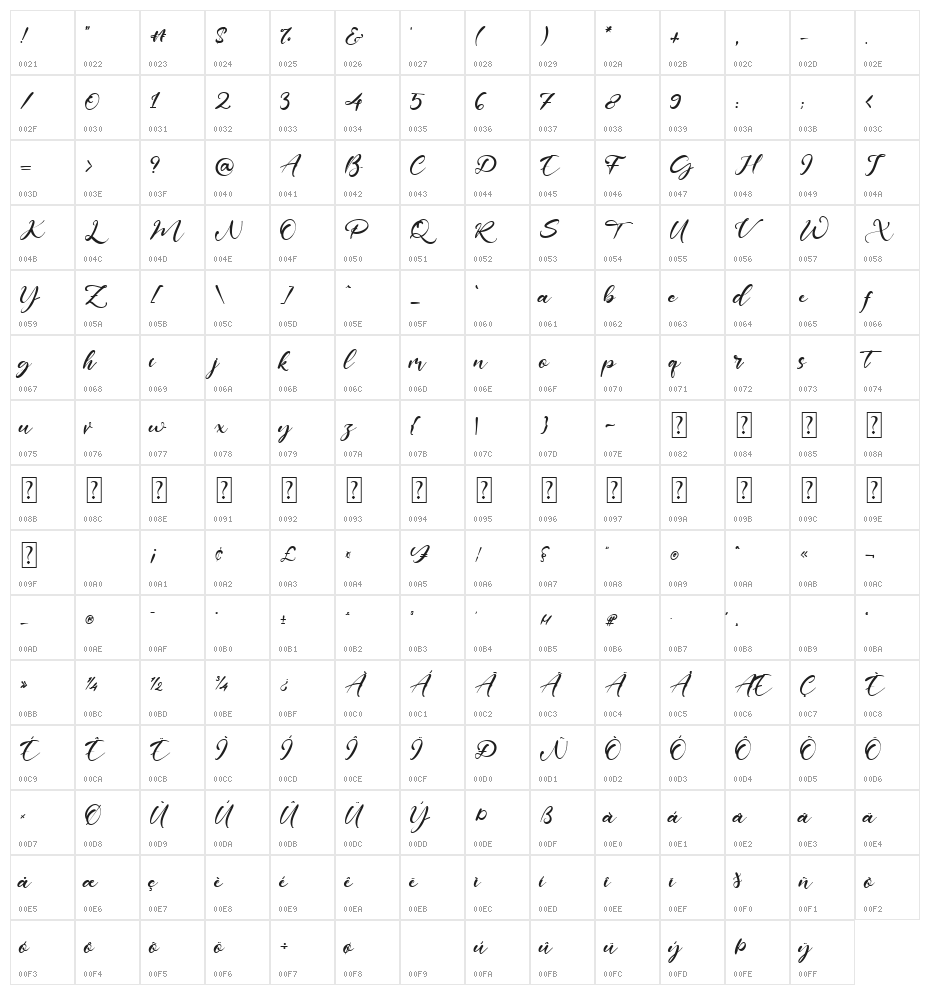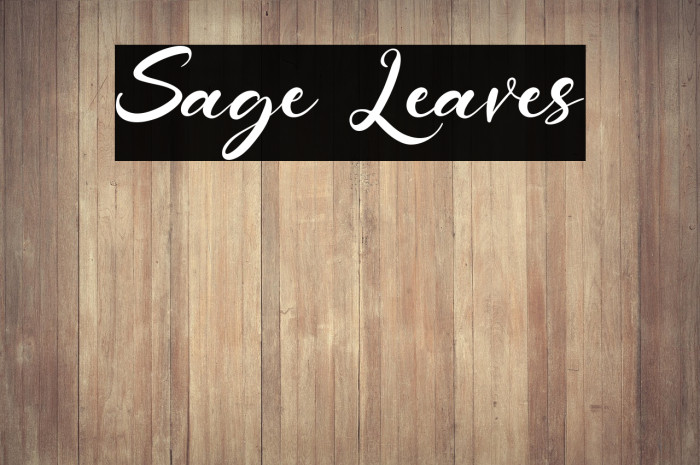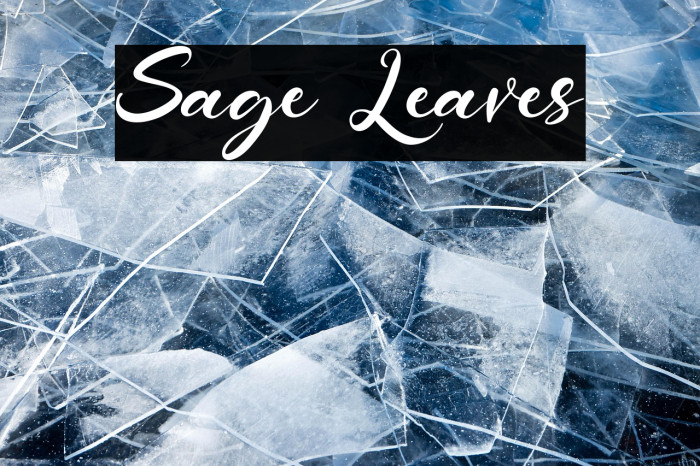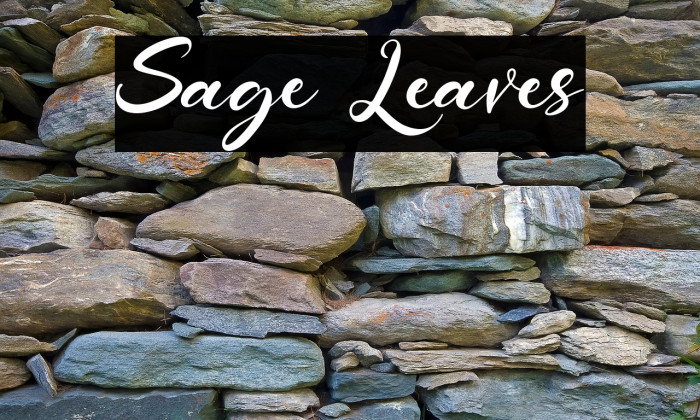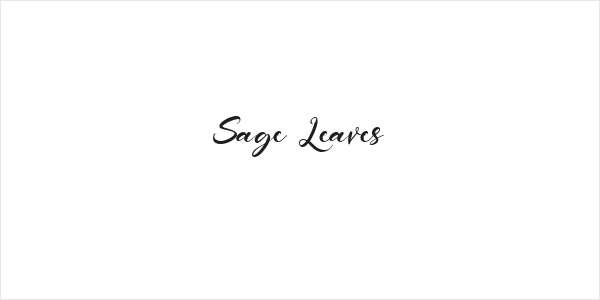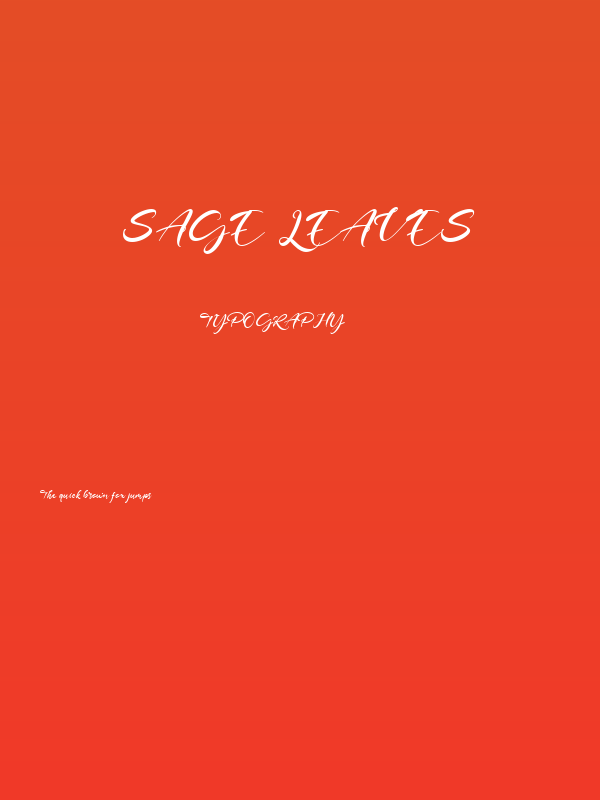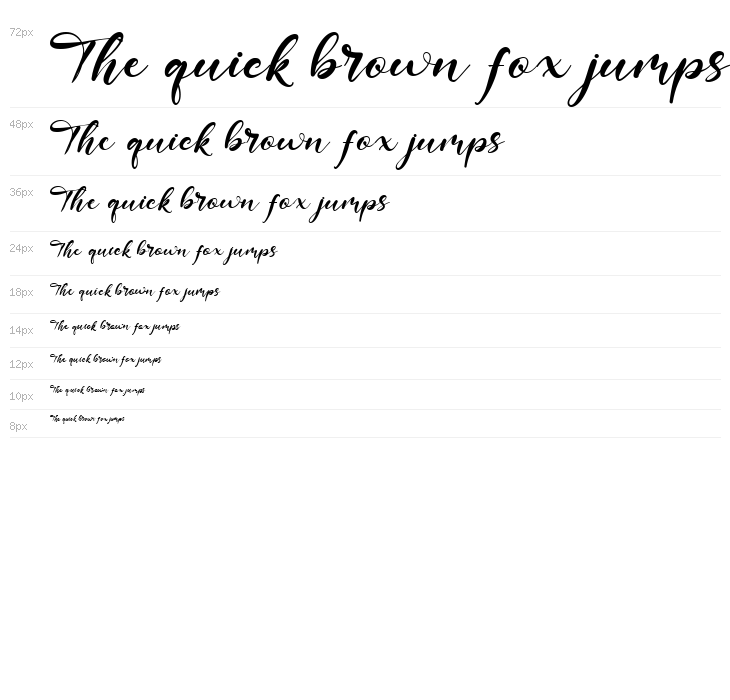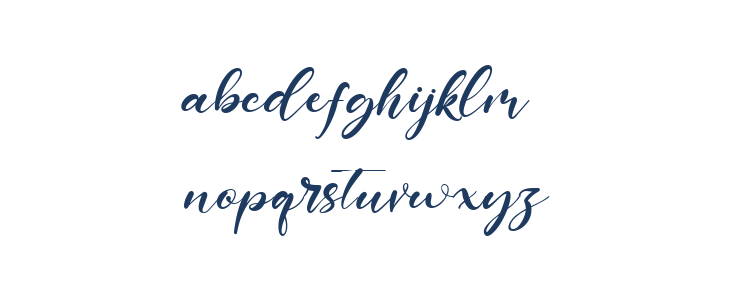
Sage Leaves Font
Sage Leaves Description
This font features an elegant, flowing script style that mimics the fluidity of handwriting. The uppercase letters are ornate and slightly exaggerated, with sweeping curves and flourishes that add a touch of sophistication. The lowercase letters maintain a consistent flow, with smooth connections between characters, enhancing readability while preserving the decorative appeal. The numerals are styled to match the script, with a slight slant and similar flourishes. Special characters are integrated seamlessly, maintaining the overall aesthetic. This font is perfect for projects that require a personal, artistic touch.